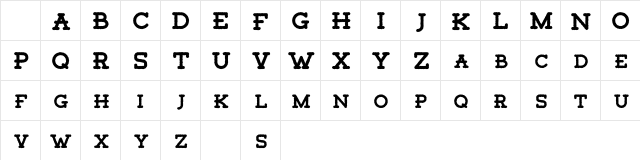
Complete Tigreal Free Rough Regular glyph index. Displaying only characters natively supported by Tigreal Free Rough Regular font.
Tigreal Free Rough embraces imperfection - its rough, textured character adds raw authenticity to designs that want to feel lived-in and unconventional.
Pro Tip: Use Tigreal Free Rough at larger sizes where the texture and irregularity of each letterform can be clearly seen - it loses its character at small sizes.